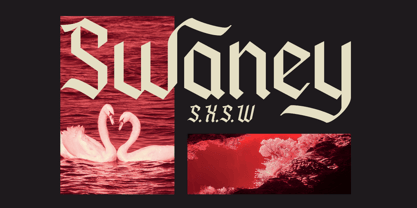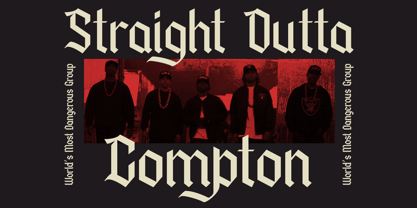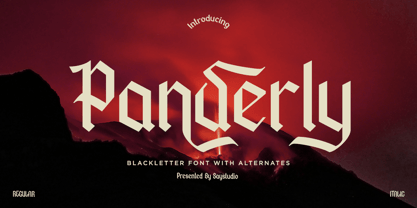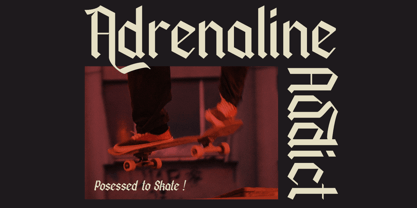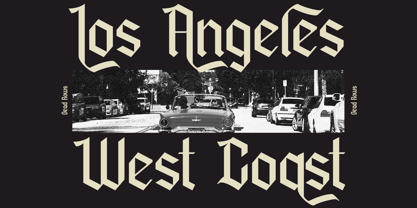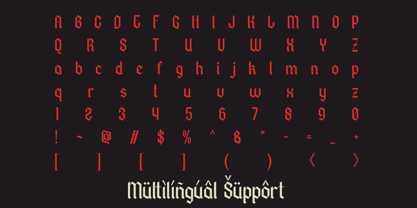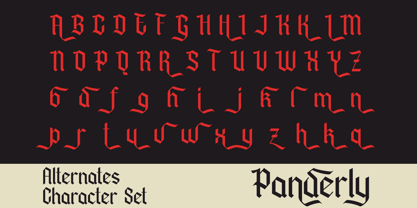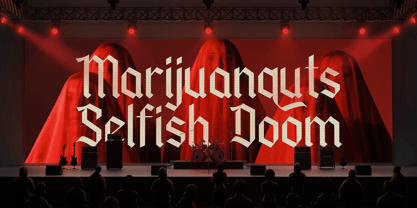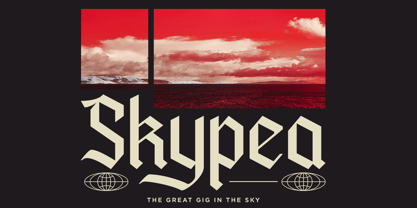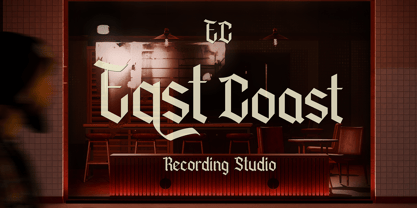
Panderly
Panderly is a bold blackletter display font inspired by medieval typography, gothic culture, underground music scenes, and dark artistic aesthetics. Crafted with sharp angular forms and powerful letter structures, this font brings a dramatic presence to every design project while maintaining excellent readability and visual impact.
Designed for creators who want to build strong visual identities, Panderly works perfectly for band merchandise, album covers, streetwear branding, tattoo designs, gothic posters, gaming titles, festival promotions, packaging, logos, and editorial layouts. The included stylistic alternates provide additional flexibility, allowing you to create unique and expressive typography compositions with ease.
Whether you're designing for metal, punk, rock, fantasy, horror, vintage, or alternative culture projects, Panderly delivers an authentic blackletter character that instantly captures attention and creates a memorable visual statement.
• Panderly Regular
• Panderly Italic
• Stylish Alternates ( Uppercase & Lowercase )
• Multilingual Suppprt
• Symbol, Numbers